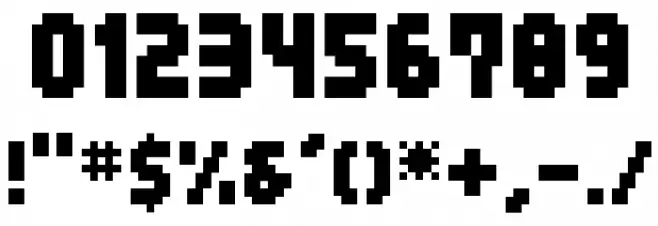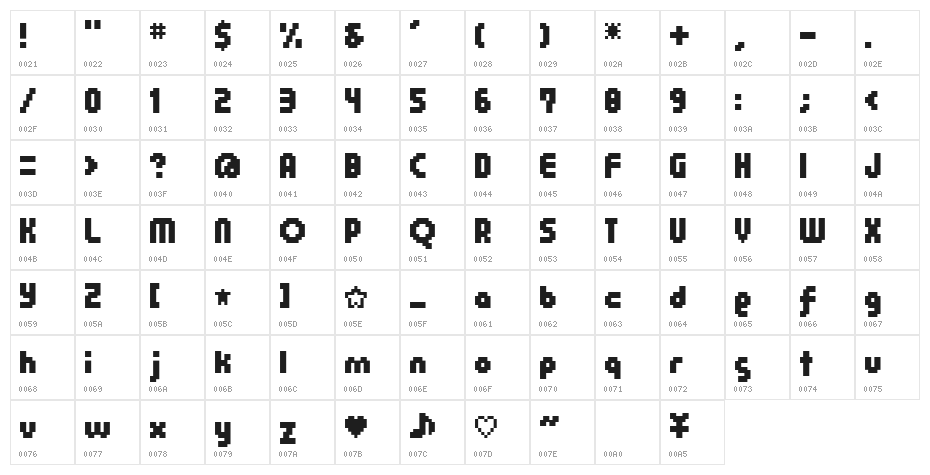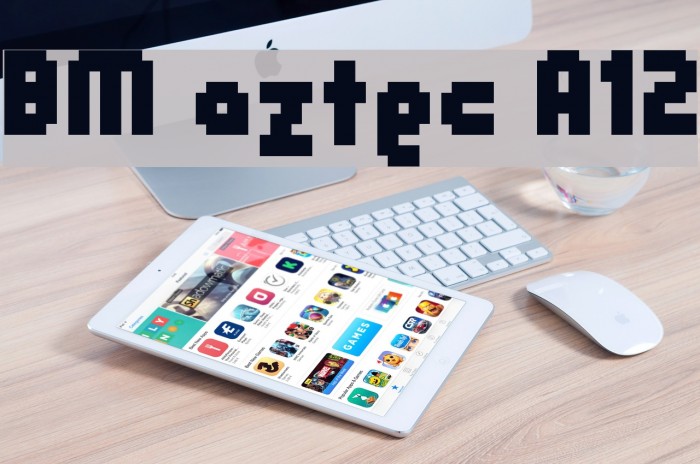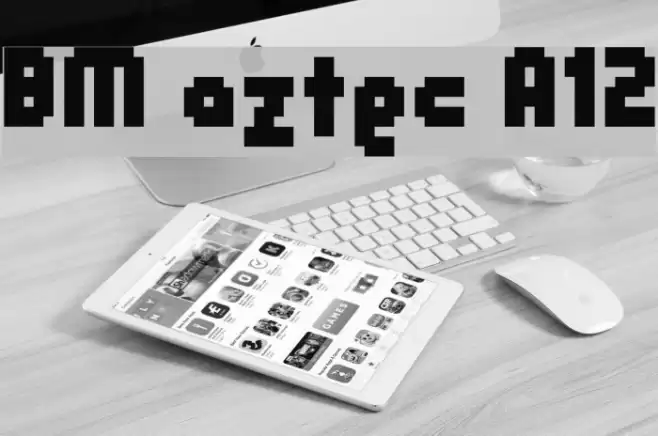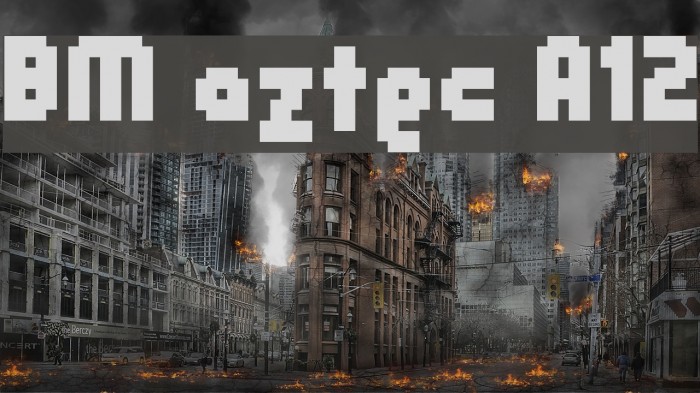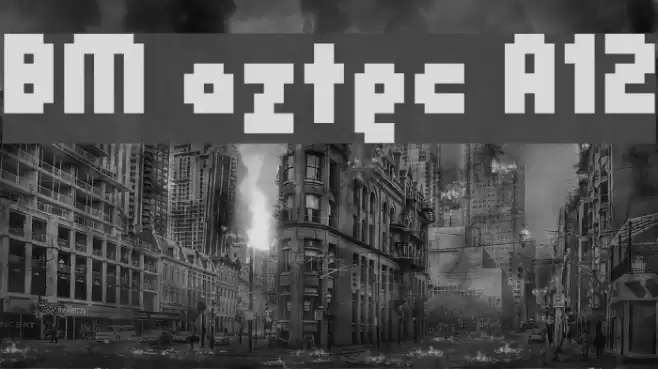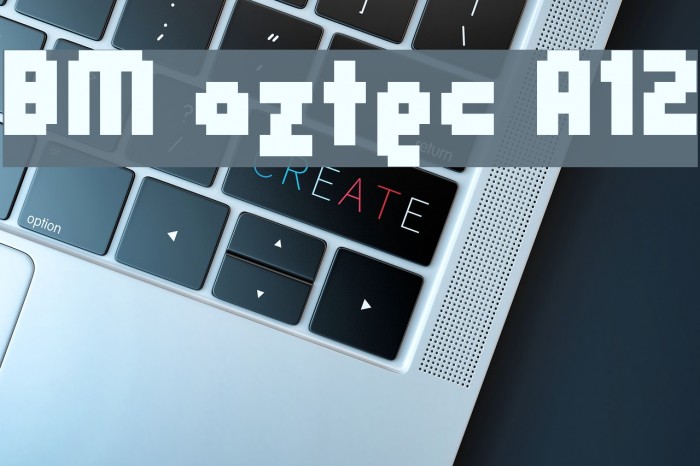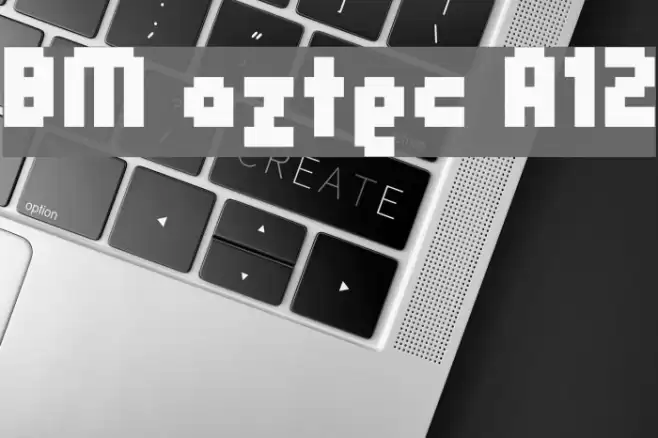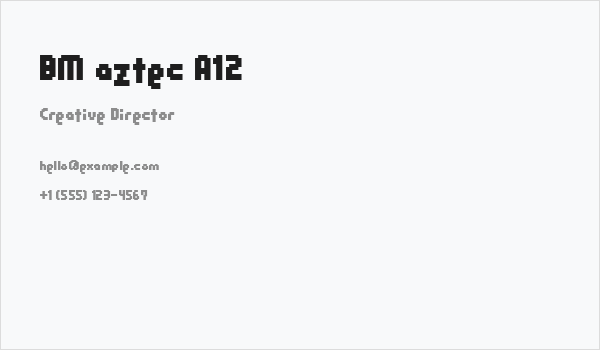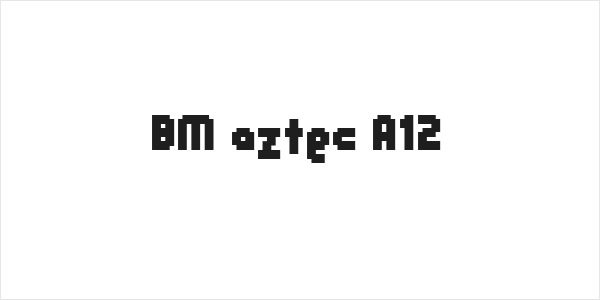
BM aztec A12 Font
BM aztec A12 Description
This font features a bold, geometric design with a pixelated, blocky appearance reminiscent of retro video game graphics. The characters are uniformly wide, creating a consistent and cohesive look across both uppercase and lowercase letters. The style is distinct and eye-catching, making it suitable for projects that require a strong visual impact. The numbers and special characters maintain the same bold and blocky aesthetic, ensuring uniformity throughout. This font's unique style is ideal for creative projects that aim to capture a sense of nostalgia or a digital, tech-inspired theme.
| Proposed Projects | Ideal for video game graphics, retro-themed posters, digital art, and tech branding. |